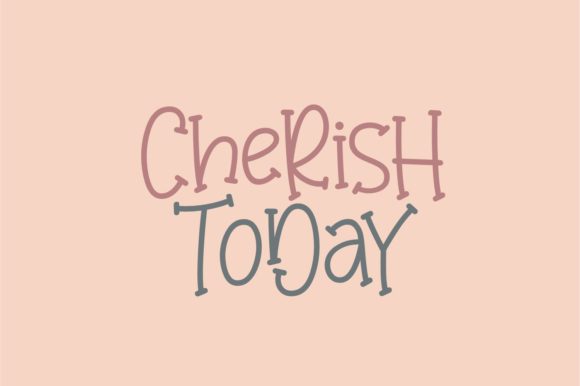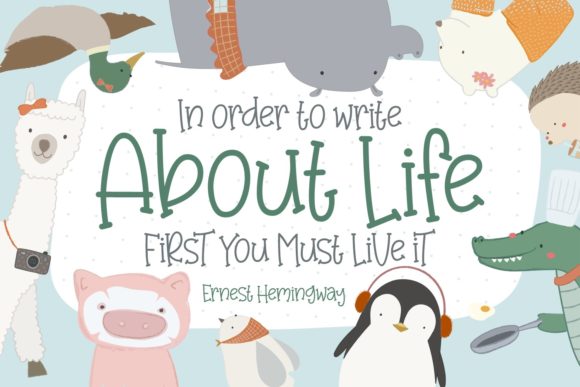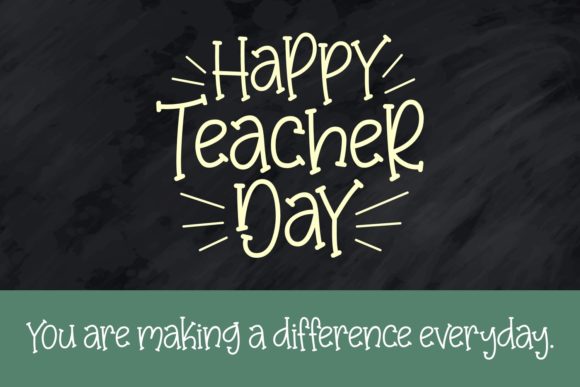
Introduction to Plenty Bounty Font
Have you ever been working on a creative project, and you’re struggling to find the perfect font to bring it to life? The frustration is real, but what if I told you there’s a font that can solve all your design woes? Welcome to the world of Plenty Bounty Font, a playful and creative font that’s about to become your new best friend.
With its unique design that combines uppercase and lowercase characters, Plenty Bounty Font is the perfect addition to any design project. Whether you’re working on a digital or print project, this font is sure to add a touch of whimsy and personality to your work. And the best part? It’s free to download, making it an accessible design resource for designers of all levels.
Key Features of Plenty Bounty Font
- High-quality design resource suitable for various creative projects, including graphics, web design, and print media.
- Unique, bold, and modern design style, making it an ideal choice for creative projects that require a statement font.
- Easy to customize and use, with a clear and legible design that is perfect for headings, titles, and body text.
Honest Review: Plenty Bounty Font
I recently had the chance to work with the Plenty Bounty Font, and I’m excited to share my thoughts on this design resource. As a designer, I’m always on the lookout for high-quality fonts that can elevate my creative projects.
Here are some things that work well with the Plenty Bounty Font:
- ✨ The font has a unique, adventurous feel that’s perfect for projects that require a bold, eye-catching look.
- ⚠️ The font may not be suitable for projects that require a more formal or professional look.
- ⚠️ Some users may find the font’s unique design to be distracting or overwhelming.
Overall, I’m impressed with the Plenty Bounty Font. It’s a great option for designers who want to add a touch of adventure to their creative projects. With its high-quality design and transparent background, it’s a valuable resource that’s definitely worth checking out.
Tips for Getting the Most Out of the Plenty Bounty Font
For the best results, use the Plenty Bounty Font on a transparent background to give your design a clean and modern look. You can also use the font in combination with other high-quality design resources to create a unique and creative project.
The Plenty Bounty Font is ideal for various design projects, such as brochures, flyers, business cards, and social media graphics. It’s also a great resource for designers who want to create a consistent brand identity.